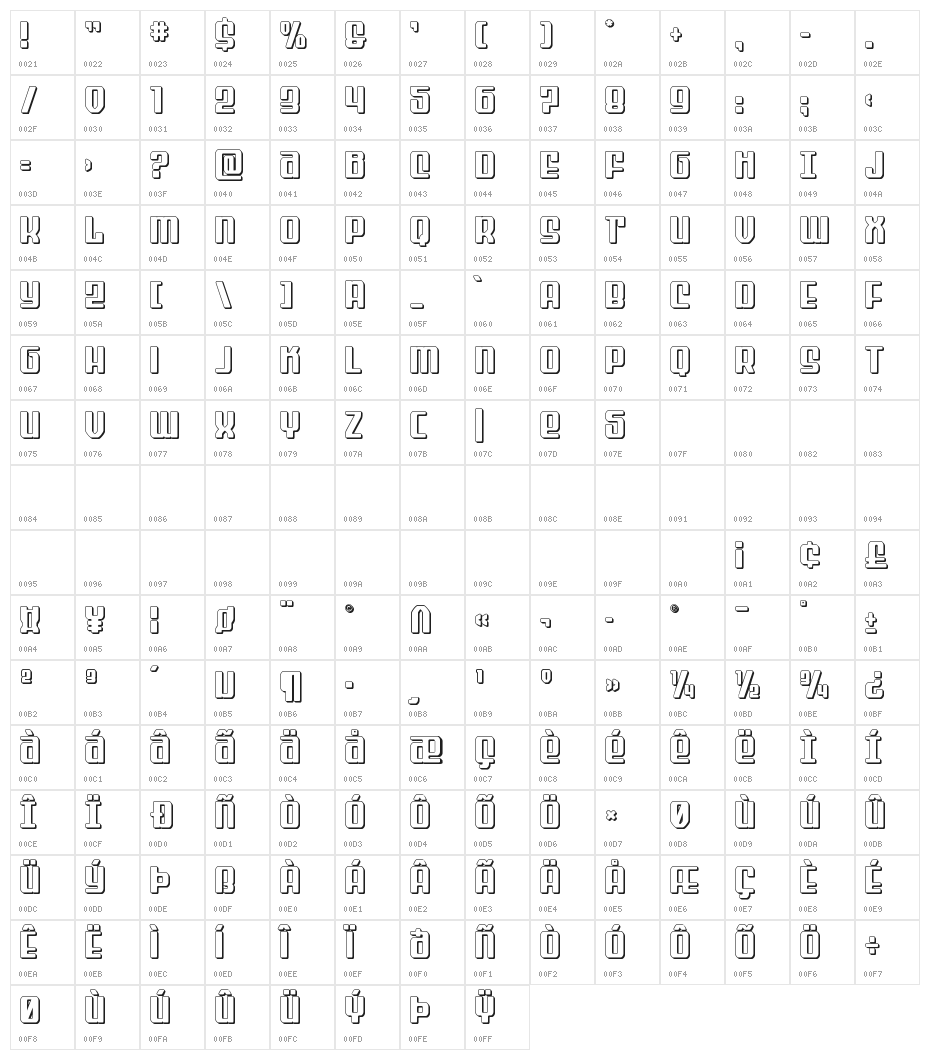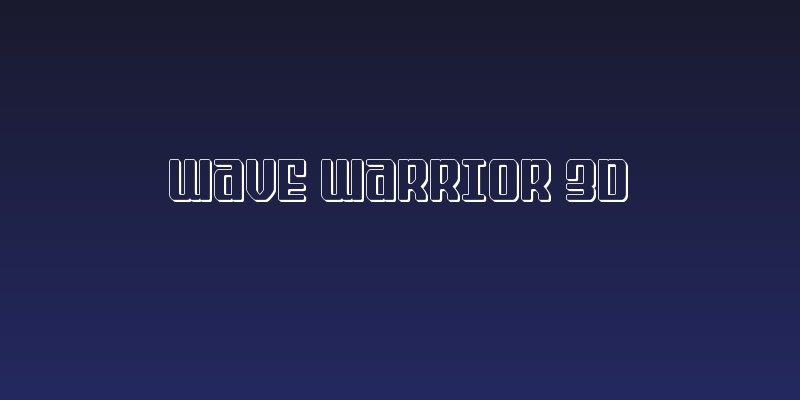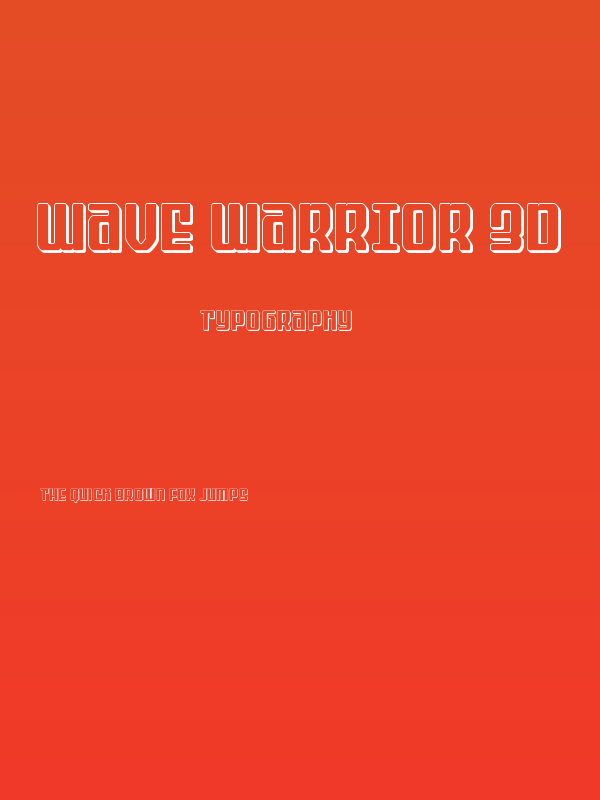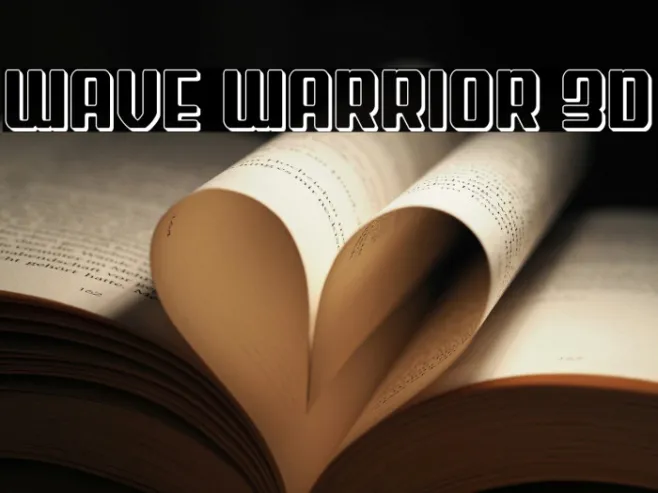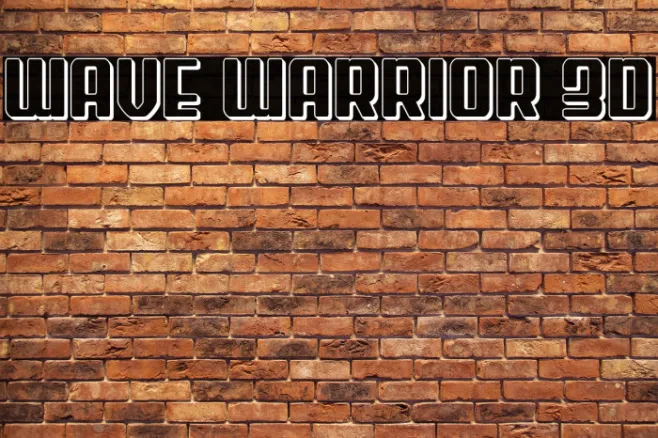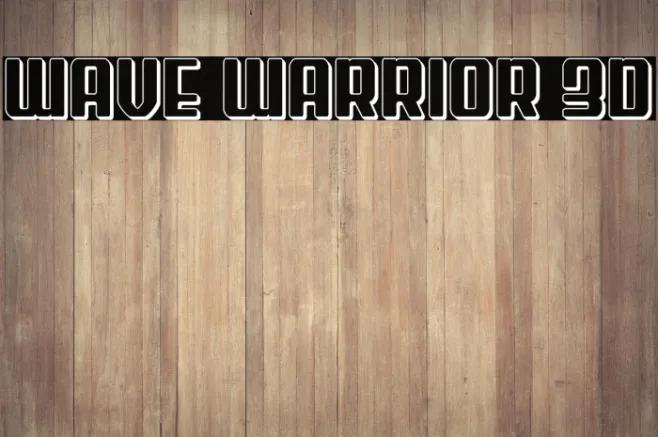
Wave Warrior 3D Font
Wave Warrior 3D Description
This font features a bold, three-dimensional design with a distinct outline that gives each character a strong, impactful presence. The uppercase and lowercase letters share a consistent geometric style, with sharp angles and clean lines that create a modern, futuristic look. The numerals and special characters are equally bold, maintaining the same 3D effect and outline. This font is perfect for projects that require a standout, eye-catching typeface, such as posters, headlines, or branding materials. Its unique style is both playful and assertive, making it suitable for creative and dynamic applications.